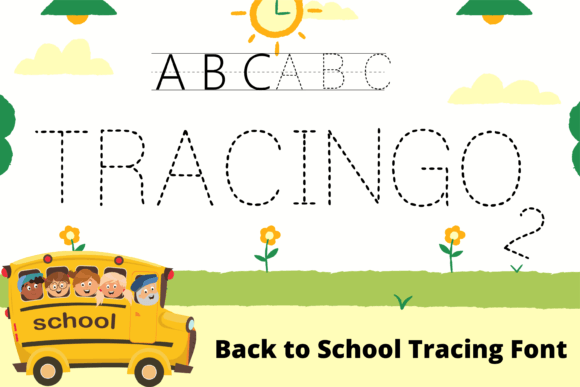
Looking for the best font to make your DIY projects stand out? Look no further than Tracingo 2, the newest addition to your font library! This display font, created by Funnyarti, is the perfect tool for parents and educators who want to help their children practice their handwriting.
With Tracingo 2, you can print out the alphabet and have your child or student trace every letter and number, making it a great resource for anyone looking to improve their penmanship. But that's not all - this font is also perfect for creating eye-catching designs for your diary planner, journal, back-to-school materials, invitations, social media posts, and anything else that needs a friendly touch.
Tracingo 2 is not just any handwriting practice font. It has been specifically designed with a unique style that will give your DIY projects a creative and playful edge. Its stylish curves and playful lines will give any text an added touch of charm and sophistication.